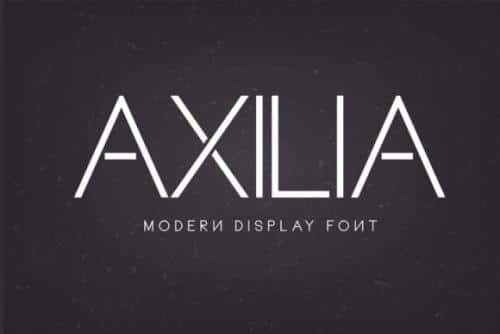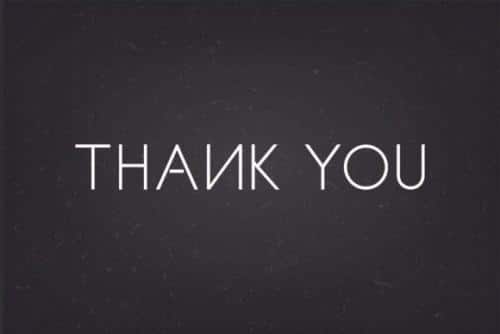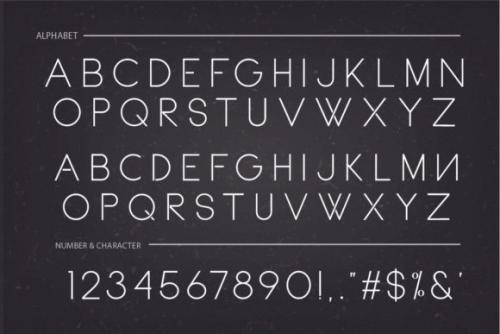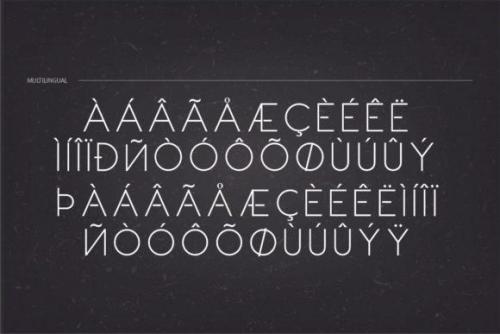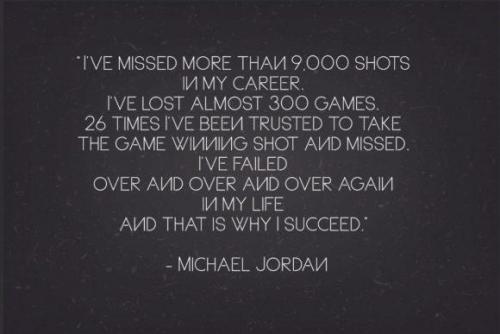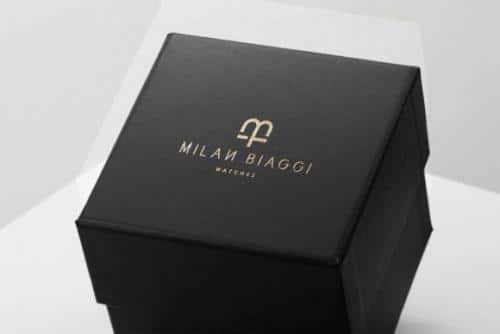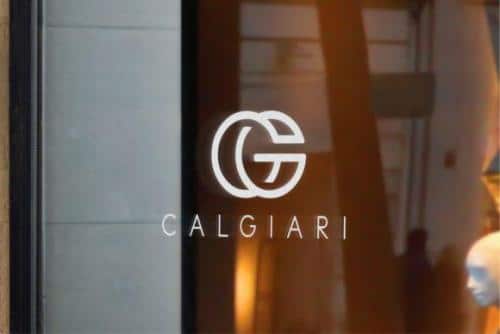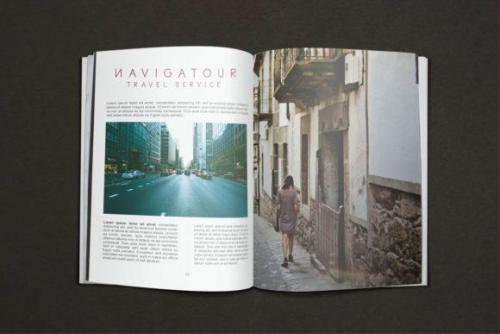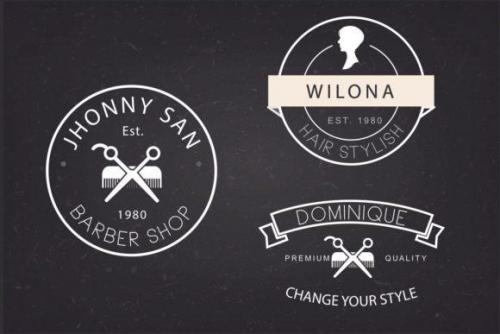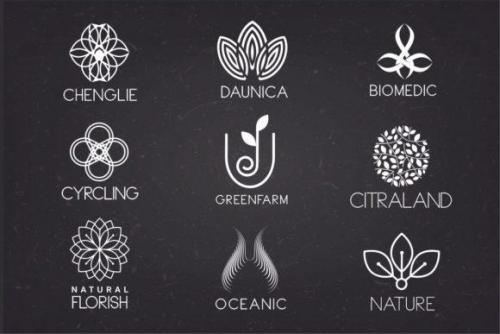
Introducing “Axilia Display Sans Typeface” – a functional modern-grotesk font, inspired by the aesthetics of 1950’s Swiss rationalism. The mono-linear solid design and the combination of sharp and rounded curves lead to a contemporary interpretation of the classic grotesque look, without compromising legibility, even at small sizes. Conceptually rationalist,
Axilia has been designed to emphasize the harmonious variations and can be effortlessly applied in a wide range of text use, from advertising to book design.